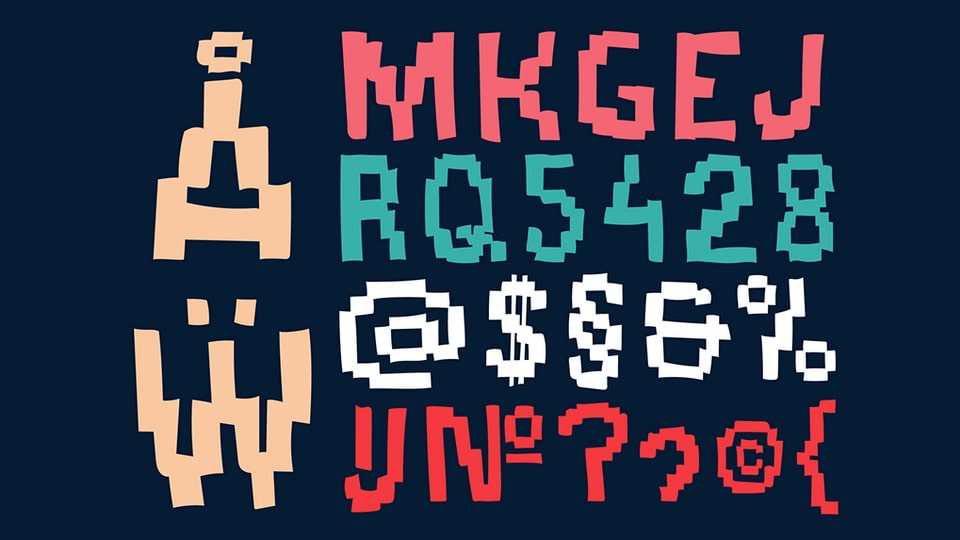
Download Handdrawn Pixel font, a hand-drawn pixel typeface inspired by the cutting-edge trend of custom, rough, and “anti-design” typefaces that define the design landscape of 2024.
Designer: Monika Gause